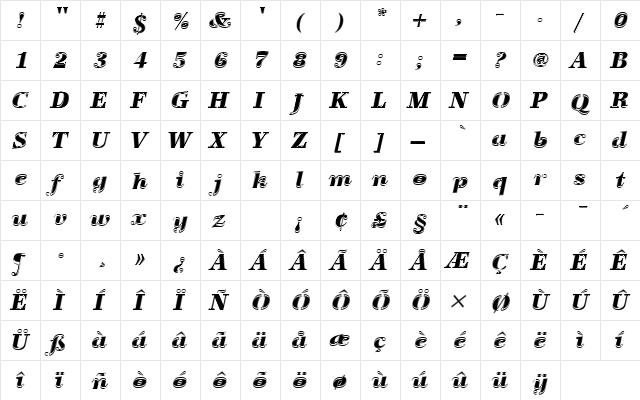
URWAntiquaTExtBolItaIn1 Regular
URWAntiquaTExtBolItaIn1 offers clean, dependable letterforms without strong stylistic allegiance, making it a practical choice for designers who need flexibility.